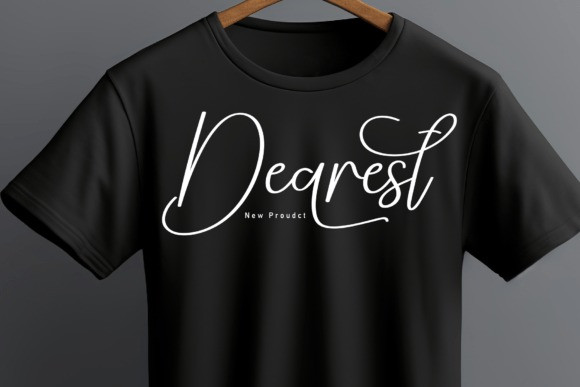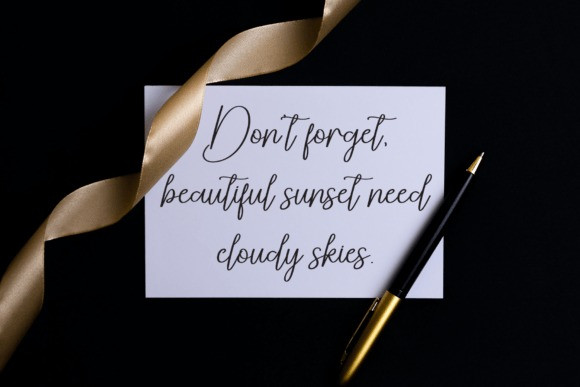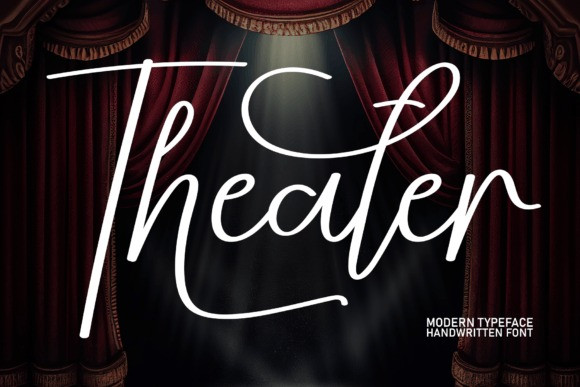
Theater Handwriting Font
Theater Handwriting Font is a stylish and incredibly elegant script font. It looks stunning onwedding invitations, thank you cards, quotes, greeting cards, logos,business cards and every other design which needs a handwritten touch.